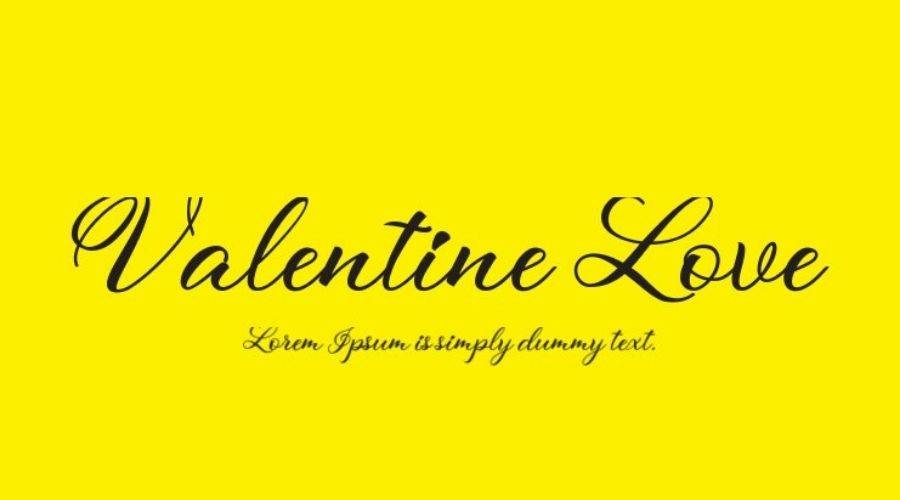
Are you looking to make your Valentine’s Day projects extra special with a unique font? The Valentine Love font is another one of those great fonts out there for Valentine’s Day! It is a calligraphy font designed by Fajri Yandi and published by Doel Creative, with 223 glyphs and 218 characters. It is available only in one weight, which also makes it easier to use the font in combination with other typefaces, allowing for greater flexibility in design projects. And if you look closely, the spacing between characters is well-balanced, providing readable text. It also includes upper- and lower-case letters as well as some special characters.
About the Designer
About Font and Usage
It’s more than just a font. A breathtaking calligraphy style and meticulous attention to detail make it a love letter to design. Each glyph has been crafted with the utmost care, ensuring that every character is not just readable but also a celebration of love and romance. Whether you’re working on a heartfelt Valentine’s Day project or adding a touch of sophistication to your client’s work, the Valentine Love Font is the perfect choice for designers who want to make a statement with their designs.
Valentine Love Font
In Conclusion,
Valentine Love font is designed for romantic occasions such as Valentine’s Day. It is a unique and versatile font that is perfect for creating a romantic and festive atmosphere. With its flowing curves and delicate flourishes, the font evokes images of love, hearts, and flowers. If you are looking for a font that captures the essence of Valentine’s Day, the Valentine Love Font is the most suitable choice. It is a romantic and whimsical font, that will make your heart sing.